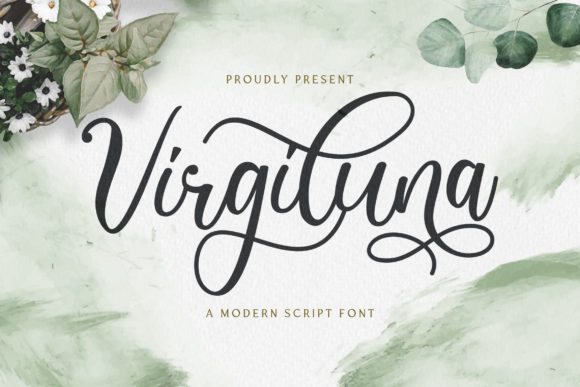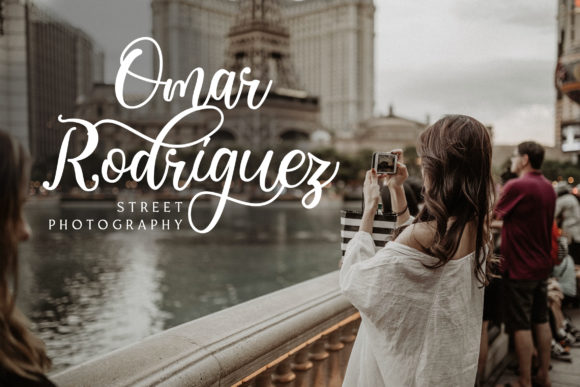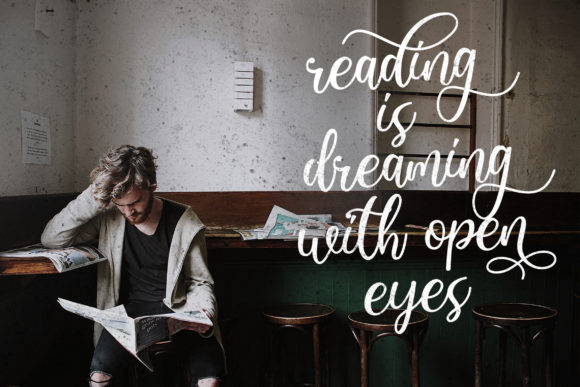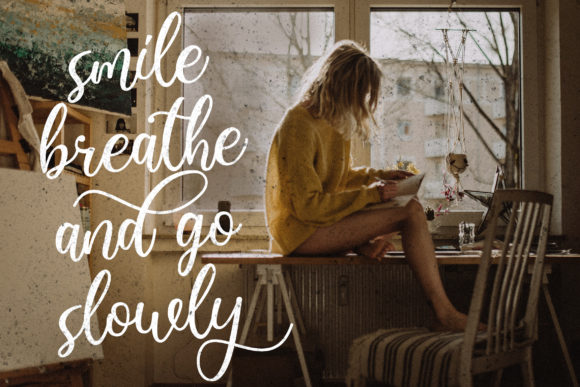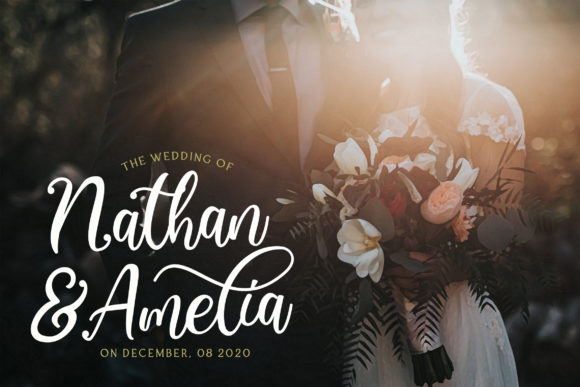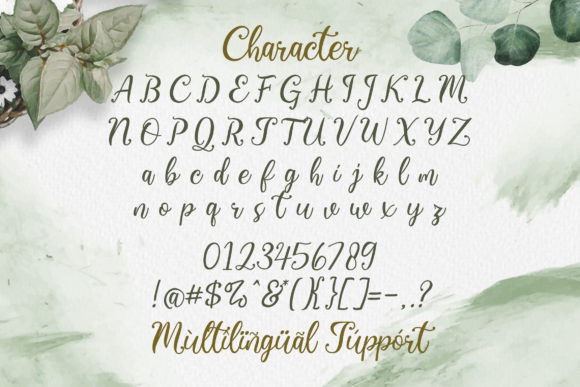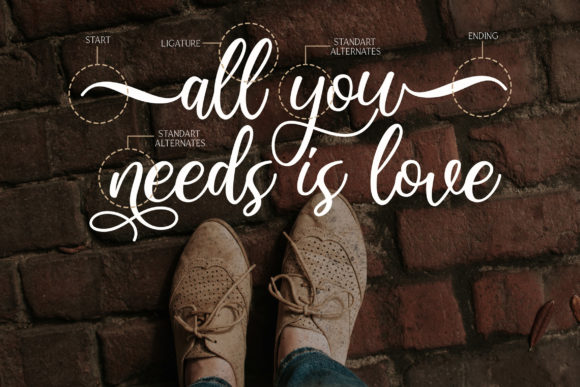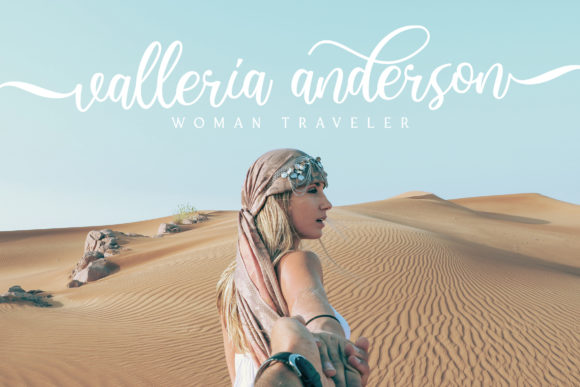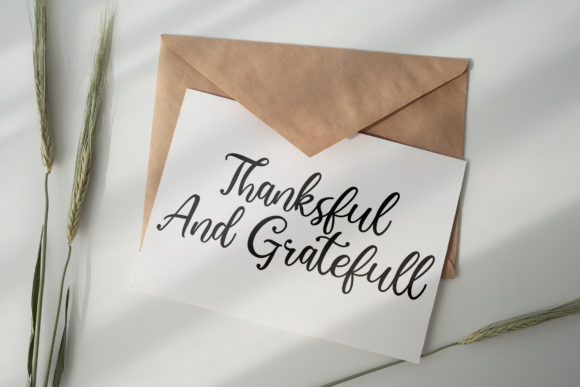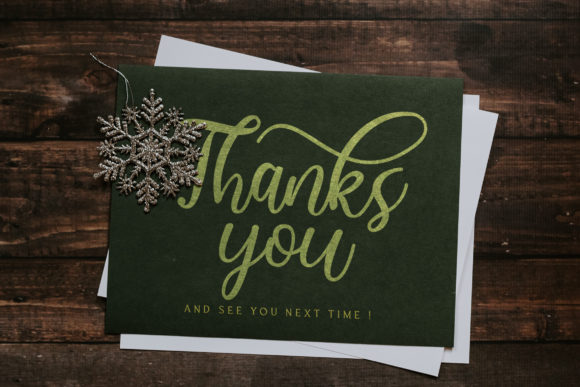
Virgiluna Font
About Virgiluna Font
Virgiluna is a sweet, soft hand-lettered script font. The playful rounded characters make it the perfect font for creating amazing designs. Fall in love with its authentic feel and use it to create gorgeous wedding invitations, beautiful stationary art, eye-catching social media posts, and cute greeting cards.